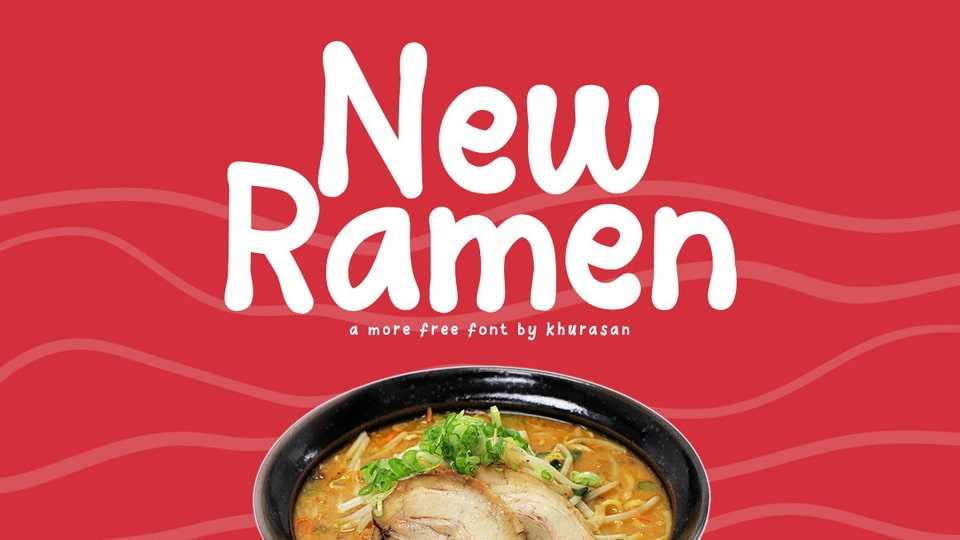
Download New Ramen font, a handwritten comic typeface that adds a burst of playful energy and expressive fun to your designs. New Ramen font features a lively and joyful design, with each letter exuding a sense of whimsical movement.